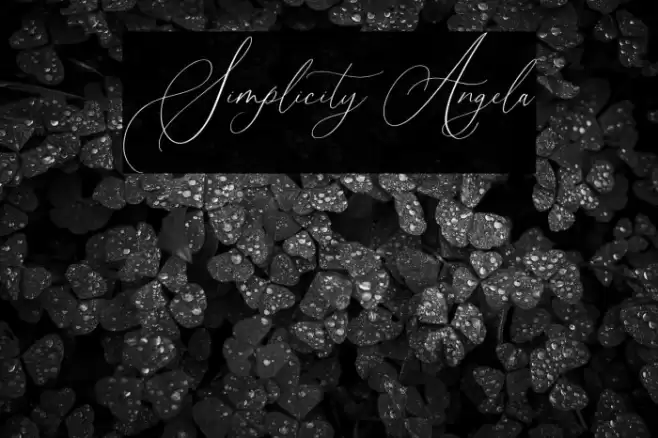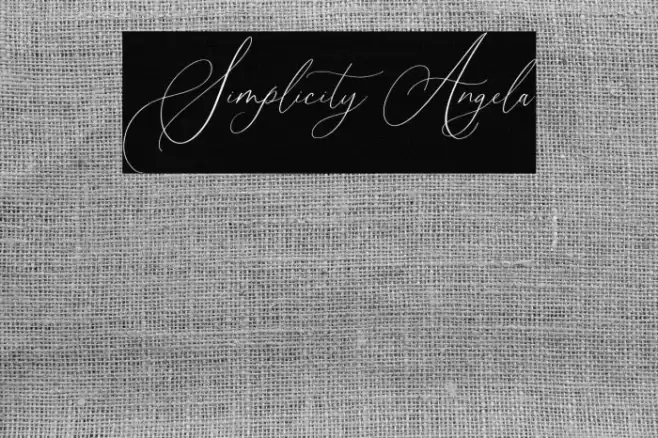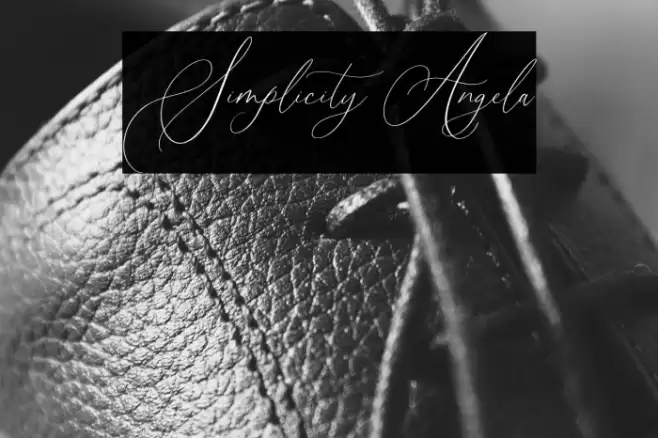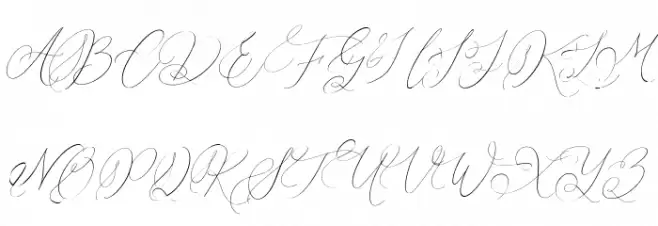
Simplicity Angela Font
Simplicity Angela Description
This elegant script font features graceful, flowing lines that mimic the fluidity of handwriting. The characters are intricately designed with delicate loops and swirls, giving it a sophisticated and ornate appearance. The uppercase letters are particularly elaborate, with extended flourishes that add a touch of grandeur. The lowercase letters maintain a consistent style, offering a harmonious blend with the uppercase. This font exudes a sense of luxury and refinement, making it ideal for formal invitations, branding, and decorative purposes. Its thin strokes and high contrast between thick and thin lines enhance its delicate and stylish look.
An elegant script font with flowing, ornate lines and high contrast from Regular fonts.
- Proposed Projects: Ideal for wedding invitations, luxury branding, greeting cards, and decorative projects.
- Overall Style: Elegant
- Use Case: Invitations, Branding, Decorative